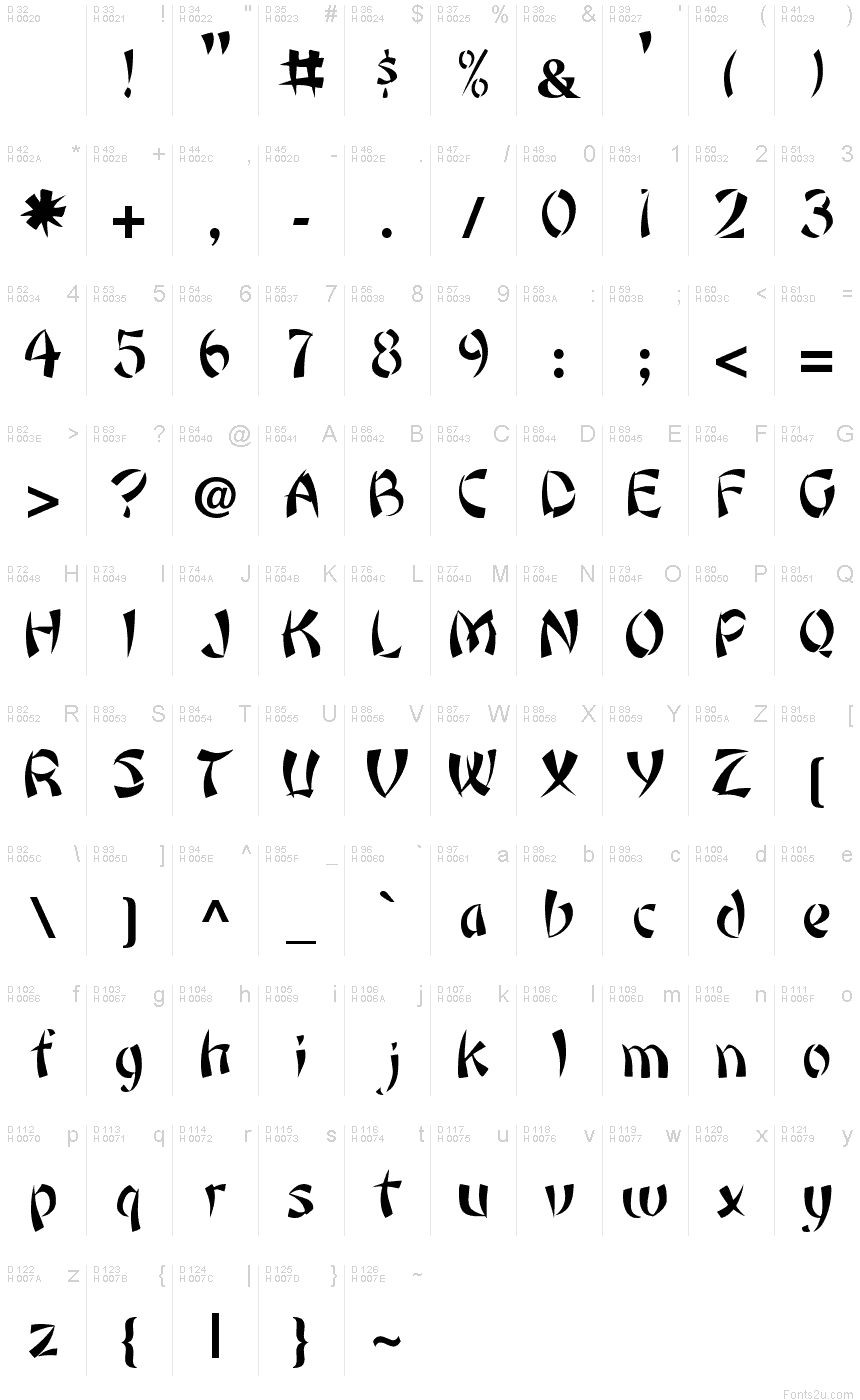
ChinaOne is a free Chinese-inspired display font with sweeping, high-contrast strokes and sharply cut joins. Its broad curves, pointed tips, and uneven brushlike shapes give the lettering the look of hand-cut calligraphy.
Restaurants and food brands can use its theatrical forms for menus, packaging, and signage. It especially suits audiences expecting a stylized East Asian theme. The repeated wedge shapes can become a central part of a restaurant or specialty product identity.
ChinaOne